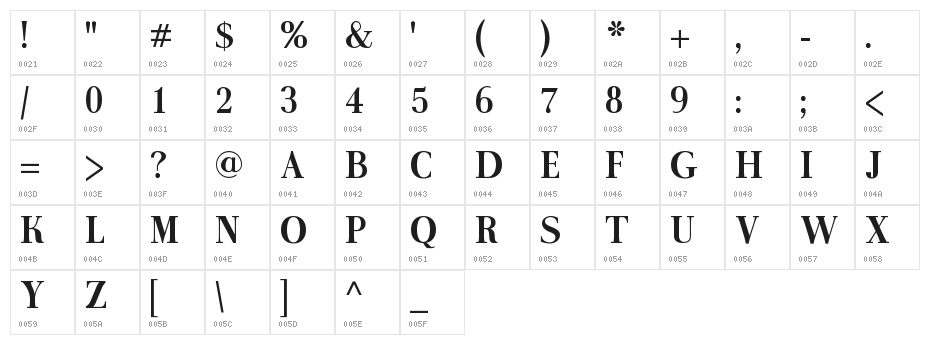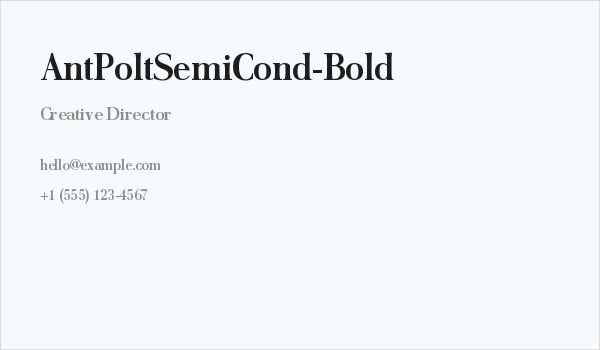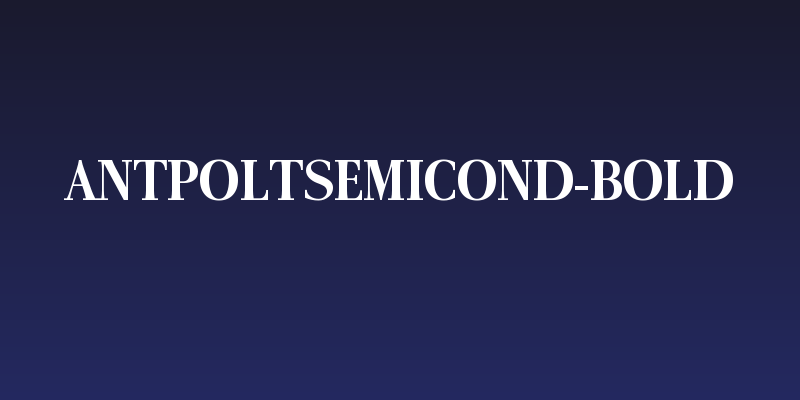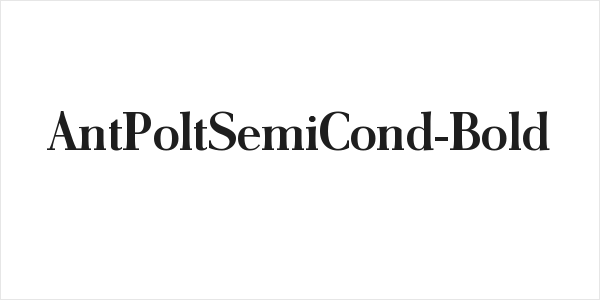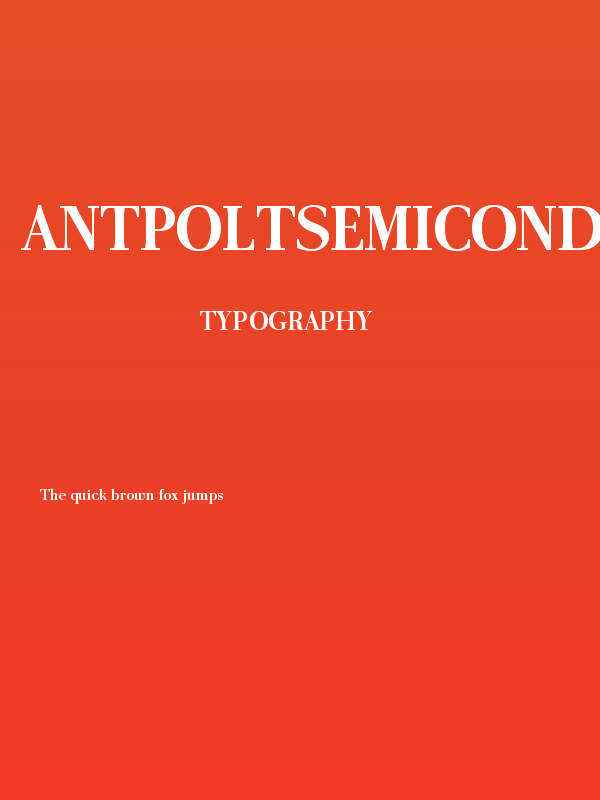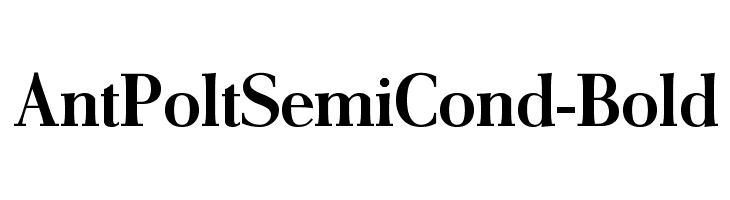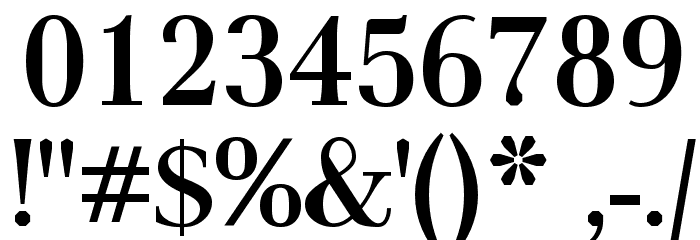
This font features a bold and confident serif style, characterized by its semi-condensed letterforms that offer a modern yet classic appeal. The uppercase letters are strong and prominent, while the lowercase letters maintain a balanced and harmonious appearance. The numerals are clear and easily distinguishable, making them suitable for a variety of applications. Special characters are well-defined, adding versatility to the font's usage. The overall design is both elegant and functional, making it ideal for projects that require a touch of sophistication.
| Overall Style | Modern Classic |
| Use Case | Headlines, Logos, Editorial Design |
| Proposed Projects | Ideal for branding, editorial design, headlines, and formal invitations. |